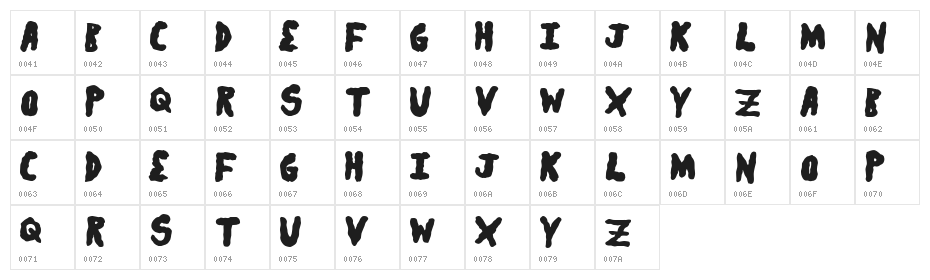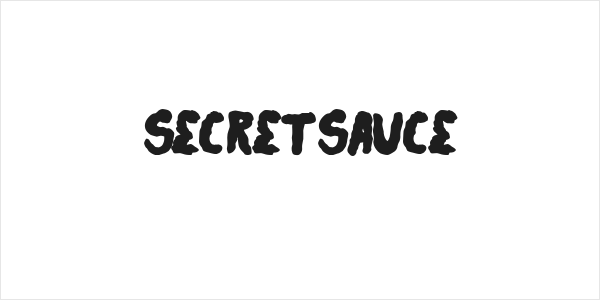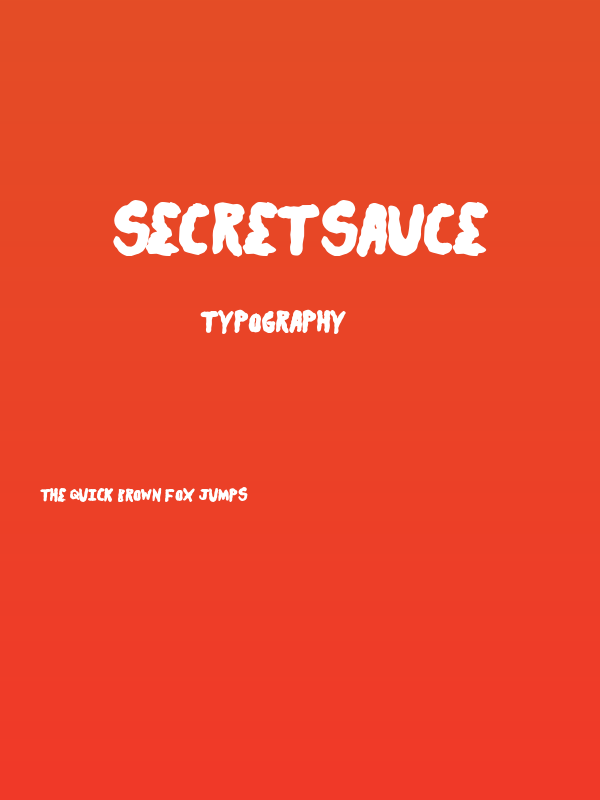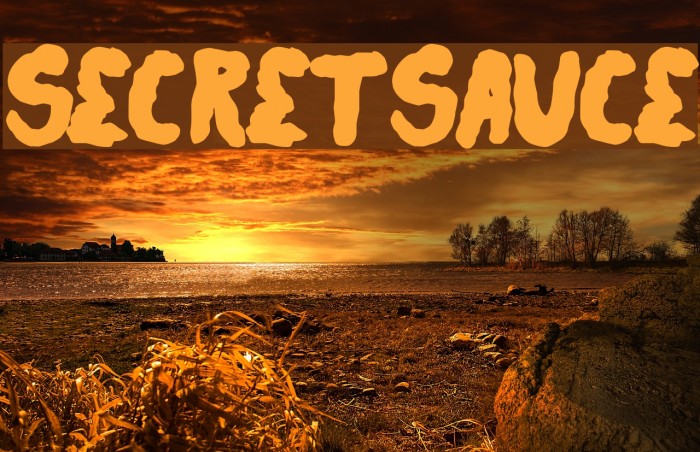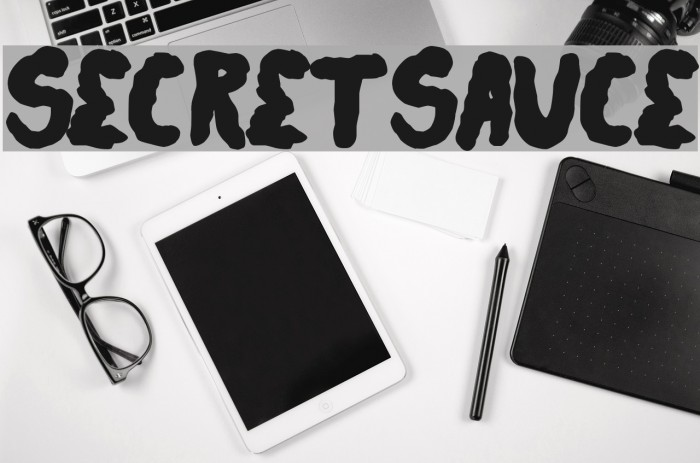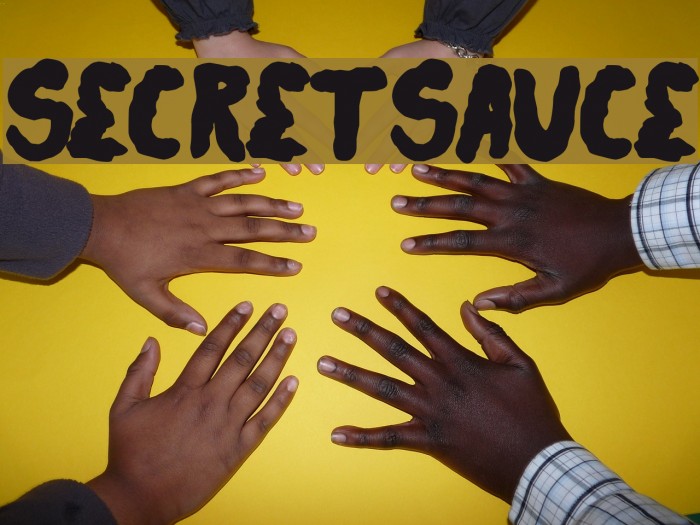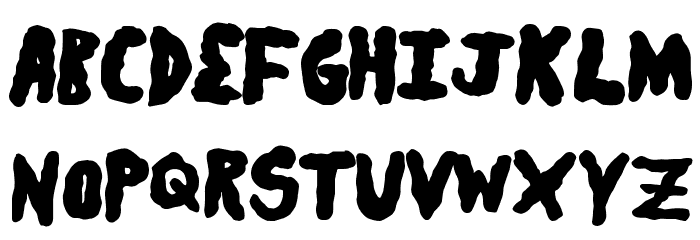
secretsauce Font
secretsauce Description
This font exhibits a bold and expressive style with a hand-drawn appearance. The characters are thick and irregular, giving them a playful and dynamic look. The strokes are uneven, adding to the organic feel of the font. The overall appearance is reminiscent of brush strokes, with a slightly rough texture that enhances its artistic quality. The uppercase and lowercase letters maintain a consistent style, with a noticeable emphasis on boldness and character. This font is well-suited for creative projects that require a touch of personality and flair.
| Proposed Projects | Ideal for posters, album covers, artistic branding, and creative social media graphics. |